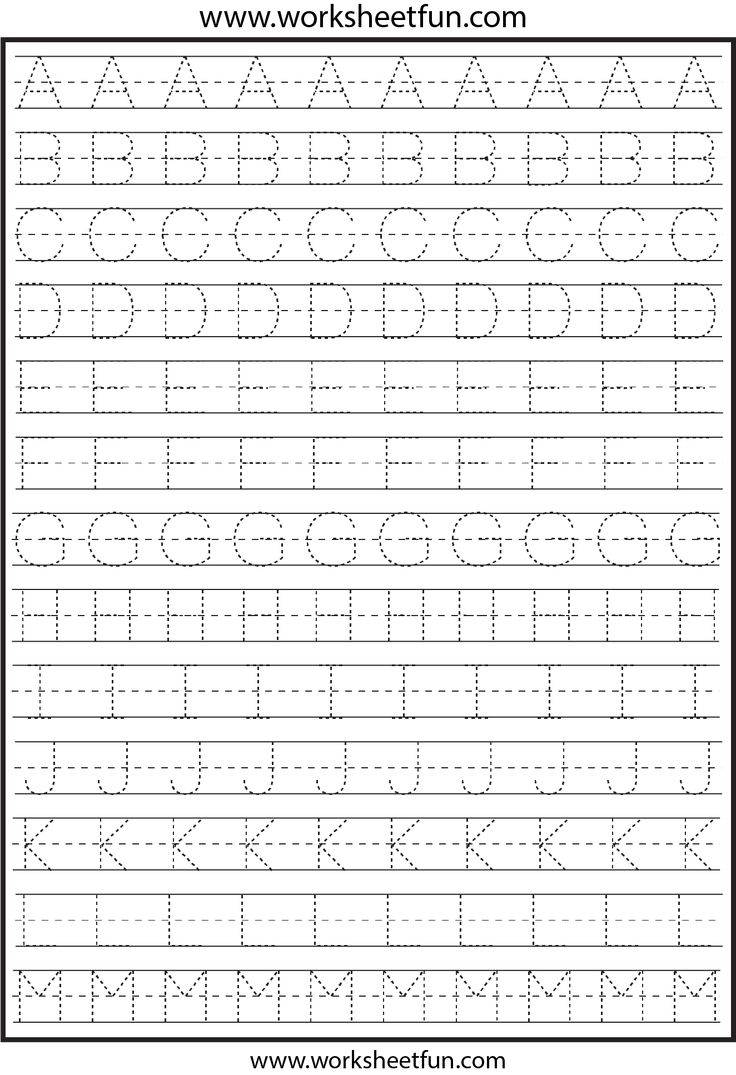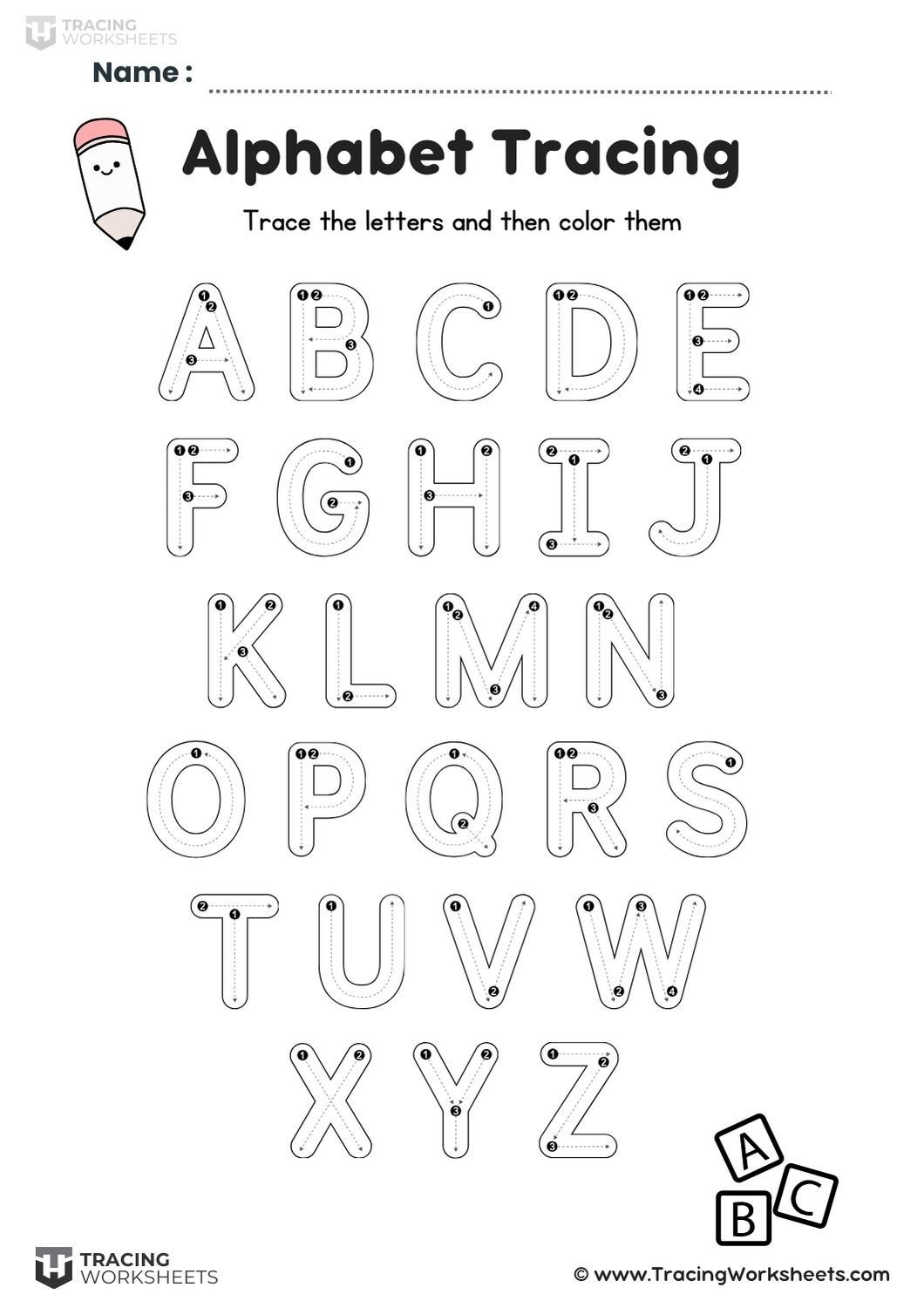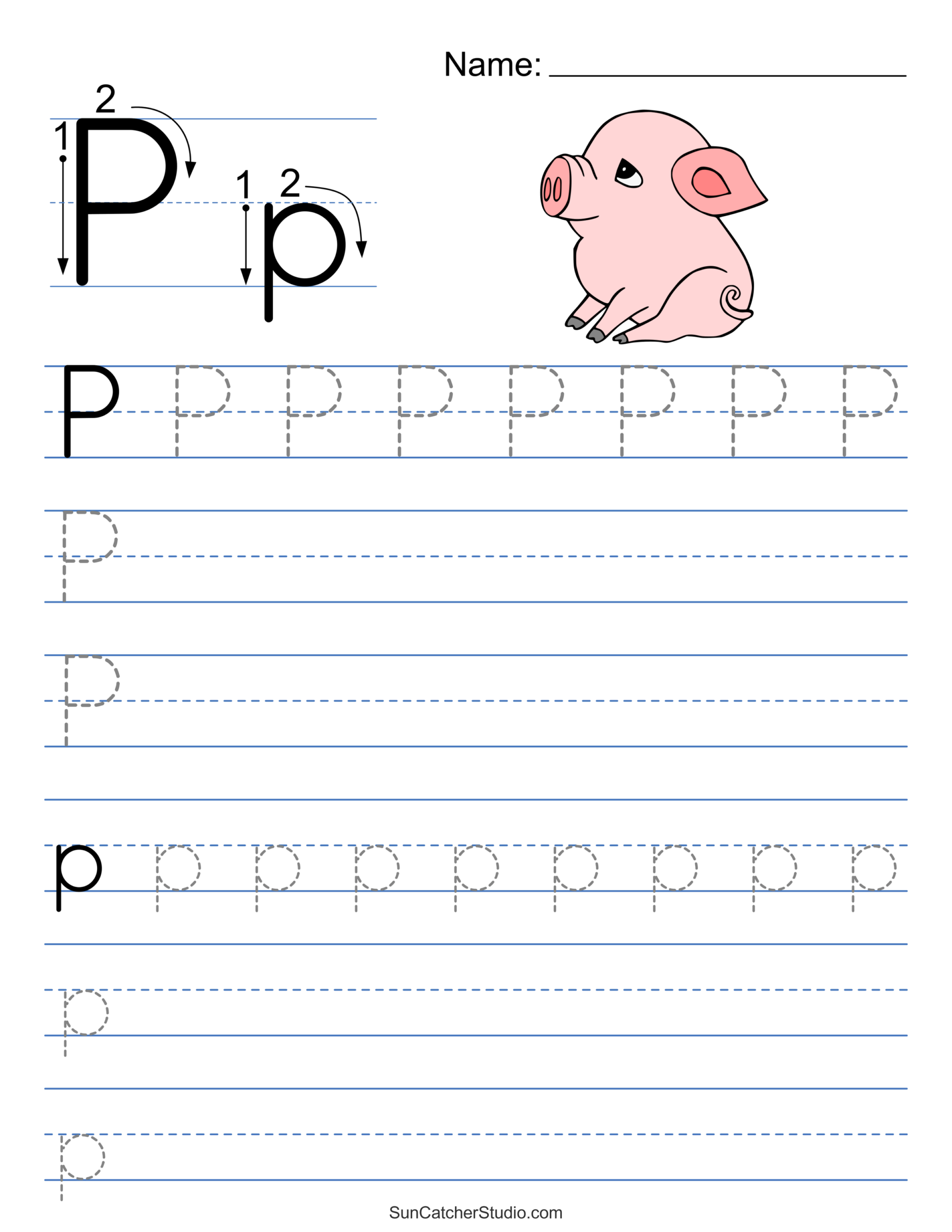
Finding the right tools for teaching kids can be a challenge. One effective method is using fun and engaging fonts that help children learn to write. A free letter tracing font can make this process enjoyable and effective.
Free Letter Tracing Font
A free letter tracing font is an excellent resource for parents and educators alike. These fonts provide clear outlines of letters, making it easy for kids to follow along as they practice writing. The visual appeal keeps them engaged.
Incorporating a free letter tracing font into your teaching materials can significantly improve children’s handwriting skills. It encourages them to practice regularly, which is essential for mastering letter formation and developing fine motor skills.
Using a free letter tracing font not only aids in learning but also makes writing fun. Children are more likely to enjoy practicing their letters when they have colorful and engaging resources at their disposal.
Overall, a free letter tracing font is a valuable tool for anyone looking to enhance children’s writing abilities. By making learning enjoyable, you can help foster a lifelong love for writing and creativity.